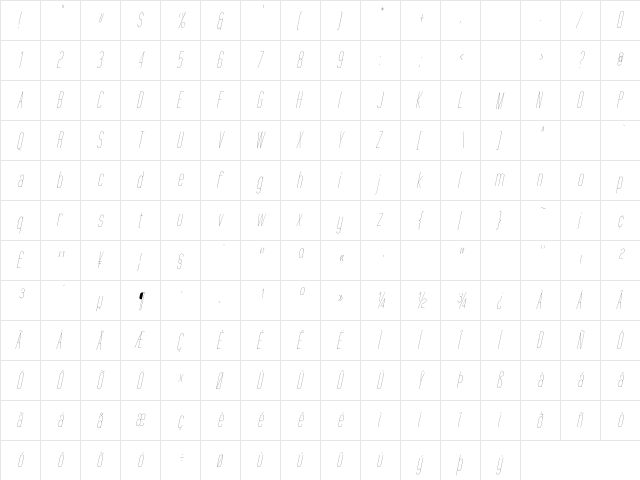
Tall Films Fine Oblique Regular
Design Context for Tall Films Fine Oblique Typeface
Tall Films Fine Oblique is a composed and adaptable typeface that performs quietly and consistently across a wide range of design contexts. The dynamic lean of this cut emphasises speed and emphasis in any layout.
Pro Tip: Use Tall Films Fine Oblique for emphasis, pull quotes, and subheadings where its slanted energy can add rhythm to the layout.